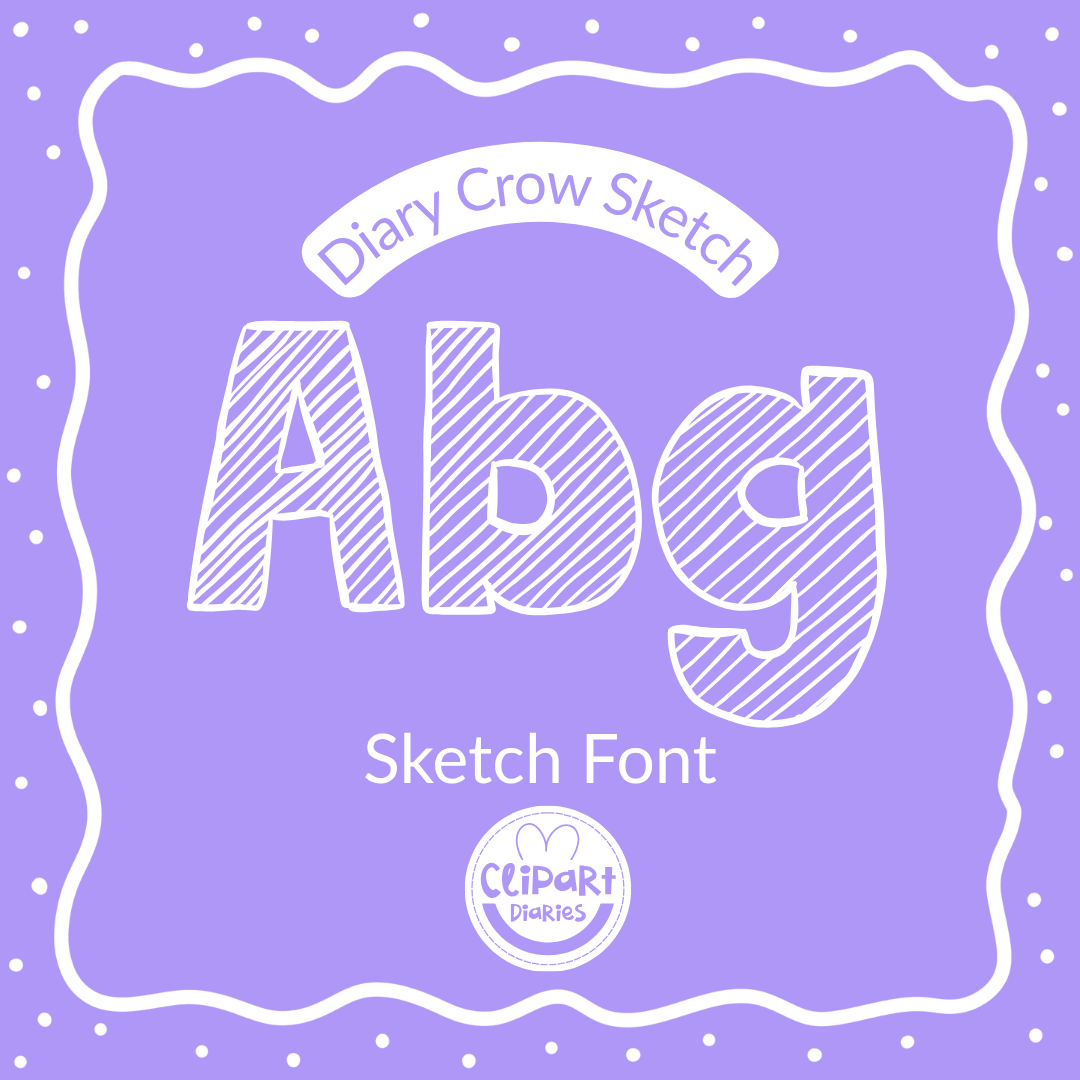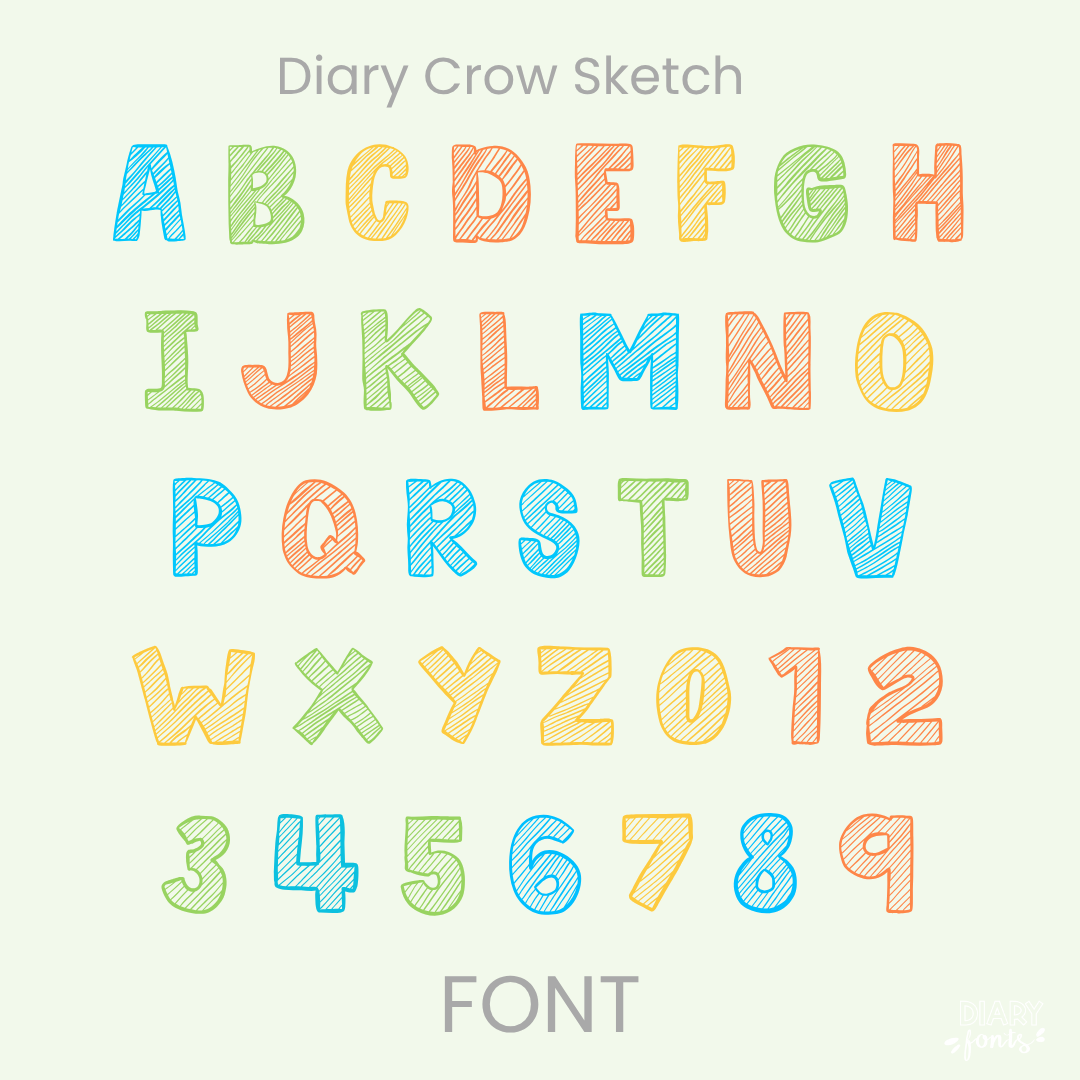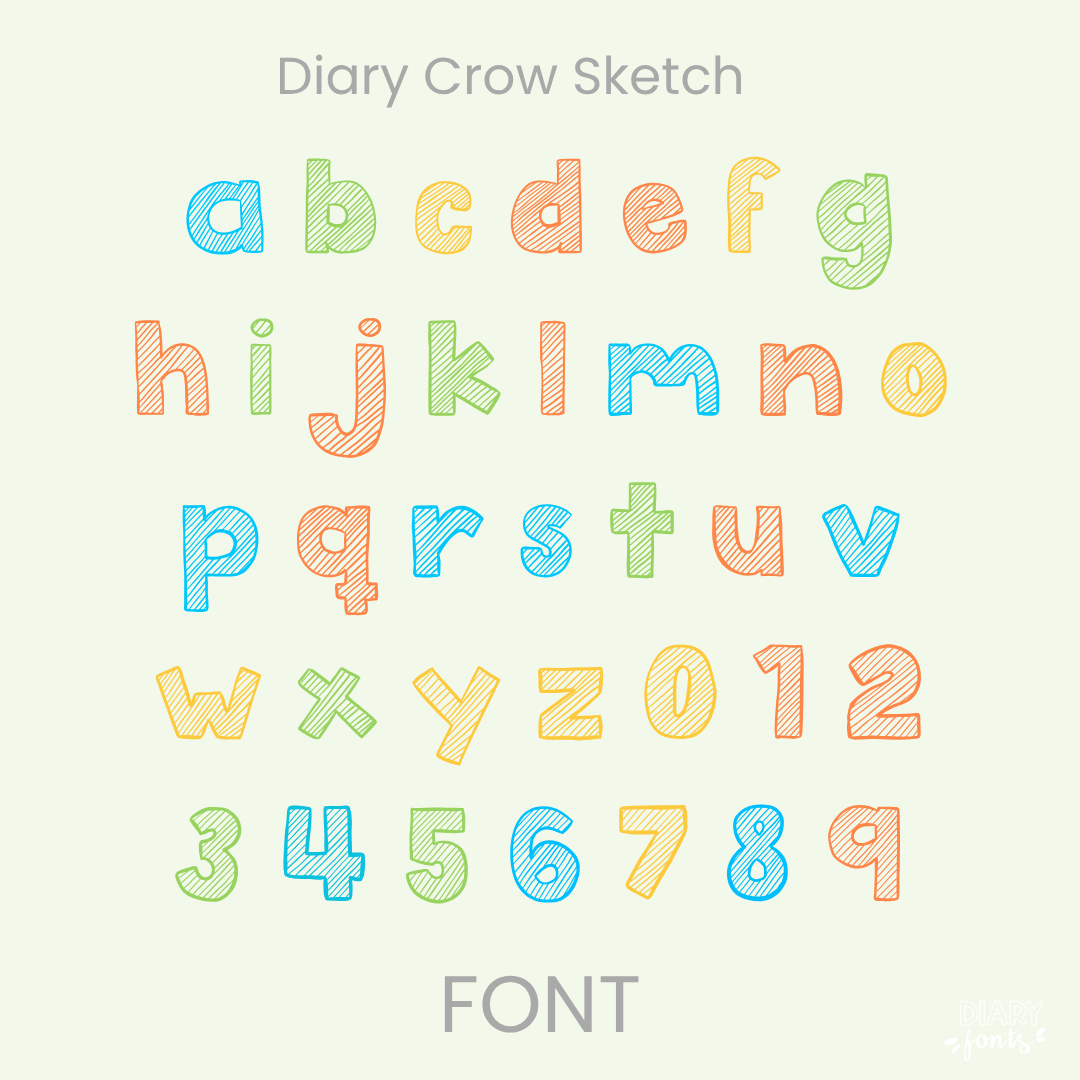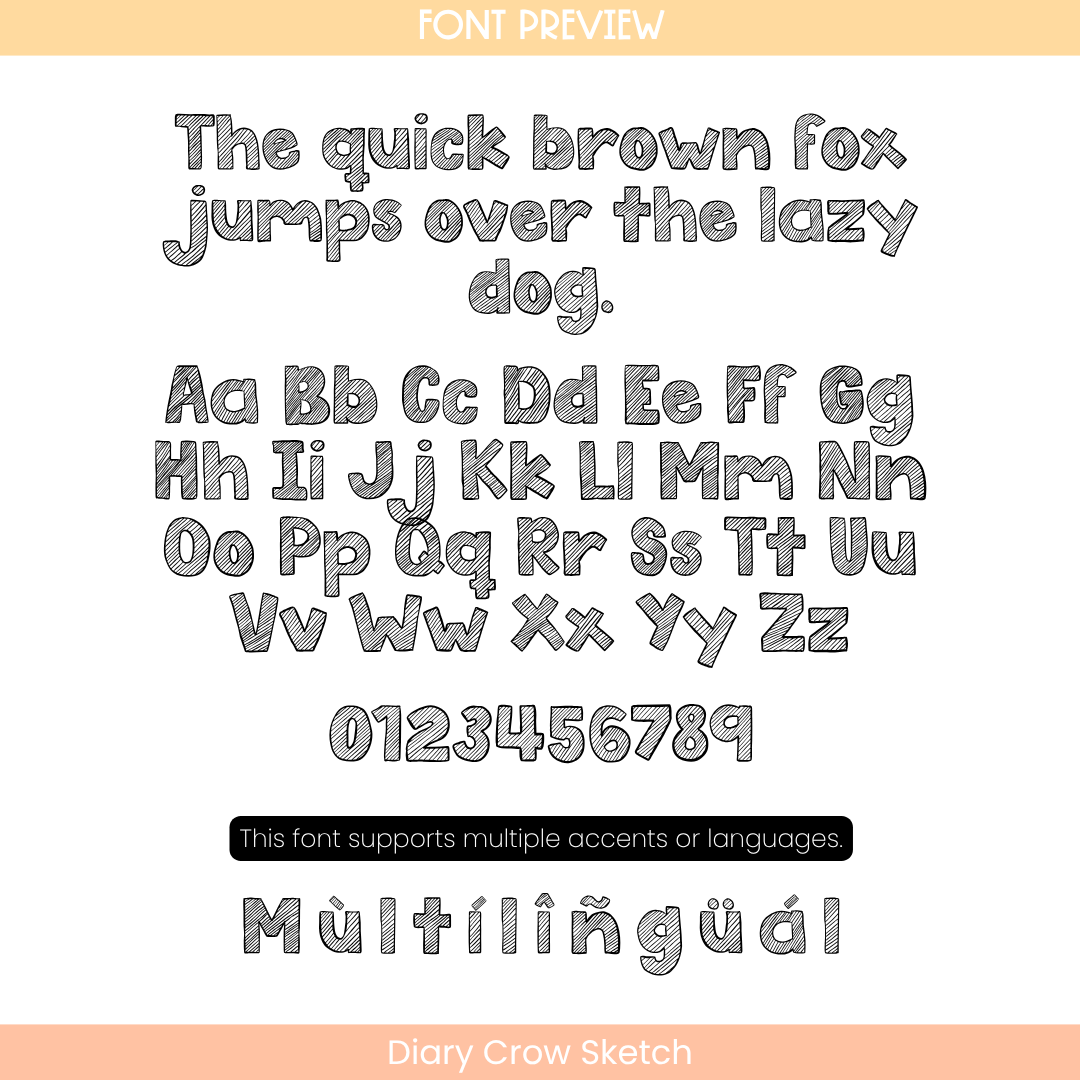
If you want to give your projects a cheerful and friendly look, Diary Crow Sketch is an excellent choice. It features handwritten characters with a built-in lined texture that mimics a detailed, finely etched pencil sketch while remaining perfectly easy to read. This makes it highly legible for students while still feeling playful. It is especially effective for bold headers, classroom labels, and primary school resources. The font includes a full set of uppercase and lowercase letters, numbers, and multiple accents to support different languages. It is ready for use in Canva, MS Office, and Adobe Apps, and it works perfectly with iPad apps like GoodNotes and Procreate. Whether for personal classroom use or commercial resources, this font adds a soft and approachable aesthetic to your work.